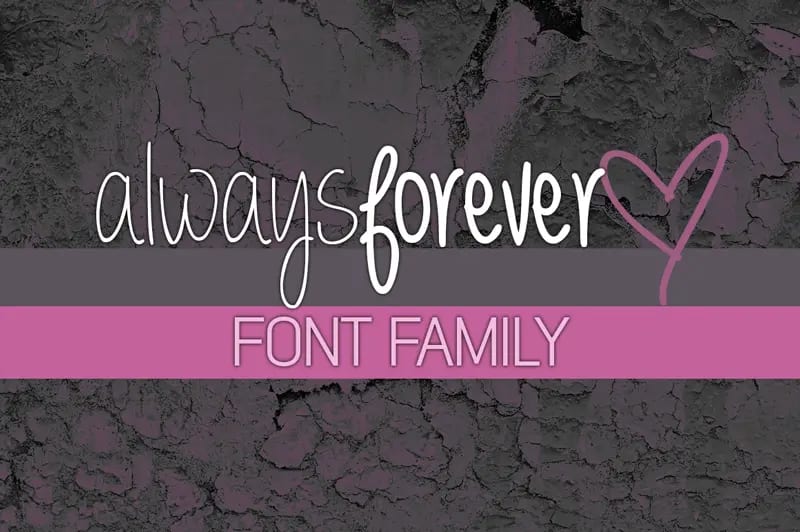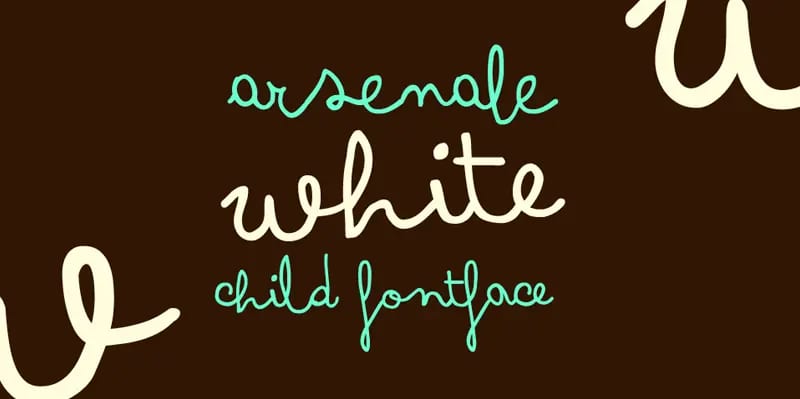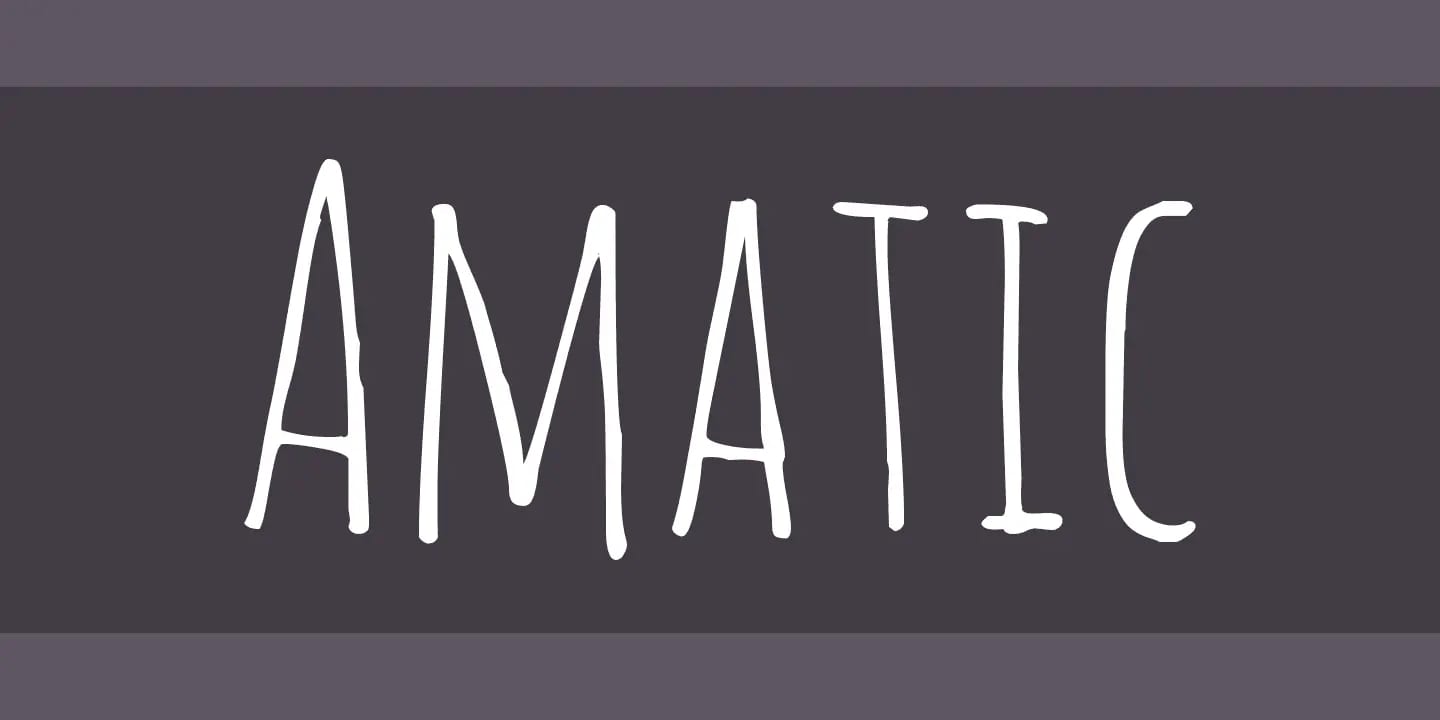
80 Top Handwriting Fonts – An Exhaustive List
Handwriting fonts are one of the most in-demand fonts of late. In fact, those involved in the creative writing and printing industry prefer handwriting fonts to traditional ones. Actually speaking, the Handwriting Font adds up a distinct style to your document. More than that, it would be the best means of putting across your views in a more attractive manner. You can use it to make your presentations quite effective. If you are thinking of opting for a great Handwriting font, you have plenty of choices. We present the choicest list of Best Handwriting Fonts. We would hope to see your needs fulfilled with this list.
Here we go with our list of top handwriting fonts.
Always Forever
The Font is designed and developed by Brittney Murphy Design. Always Forever is available in Bold Font mode. This font is available for Windows and Mac operating systems.
Amatic
Amatic is a simple, yet interesting font in the handwriting genre. The font can easily be used across any browser.
Created by Vernon Adams, the Amatic font is best suited for the titles. The font is available under a free license for both personal and commercial use. You can get it from FontSquirrel.
Architects Daughter
If you are fond of the look of architectural writing in your documents, Architects Daughter can be your best bet. It combines the natural handwriting with the precision of the architectural drawing.
Architects Daughter
Arsenale White
If you are interested in a font that lets you have a playful mood, Arsenale White is the choicest font. The font was developed as a joint effort of different designers.
Arsenale White
The font looks like the handwriting of a kid. It was developed by Zetafonts. You can check it out on a DaFont. A personal license is free. For commercial license, you may contact http://www.zetafonts.com/arsenale-white.
Before Breakfast
The free font was developed by Simon Stratford. You can draw glyphs using this font and then create typefaces.
Before Breakfast
Didot
Didot is a font made by Marcelo Reis Melo. The font has an all-caps font face. It can be a perfect option for all sorts of needs you may have.
Didot
Bernard
Bernard is a popular handwriting font developed by philing.net. It is an easy-to-use font you would love to work with.
Billy Signature
Billy Signature is one of the popular fonts. The font is quite simple and easy to use. The font has over 30,000 downloads.
Bispo Nova
Bispo Nova is a font based on italic chancery calligraphy. The font is designed by Jackson Alves. A perfect combination of calligraphy and OpenType fonts, Bispo Nova, can be downloaded from this link.
bispo nova
The font was first made available in 2012. You would love the font for its amalgamation of calligraphy with contemporary styling. The original version of the font is available only on Behance.
Californian FB Font
Californian FB Font is a handwriting font developed by Noe Araujo. It is available for free download.
You can download the font from the official link for free. The font consists of a full case of lower and upper case letters, numbers, and special characters.
Lydian Font
Here goes yet another handwriting font that is completely free. Yes, you can get a free license both for personal and commercial use. Being free does not mean it is substandard either.
Lydian Font
Created by Missy Meyer, the font is a little goofy. The creator claims that the font was created in just one day.
Chomp
The font has been developed by Behance. It is quite funny and playful.